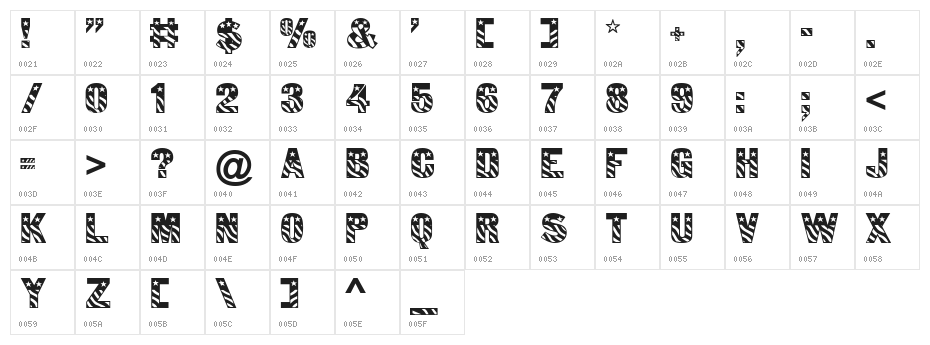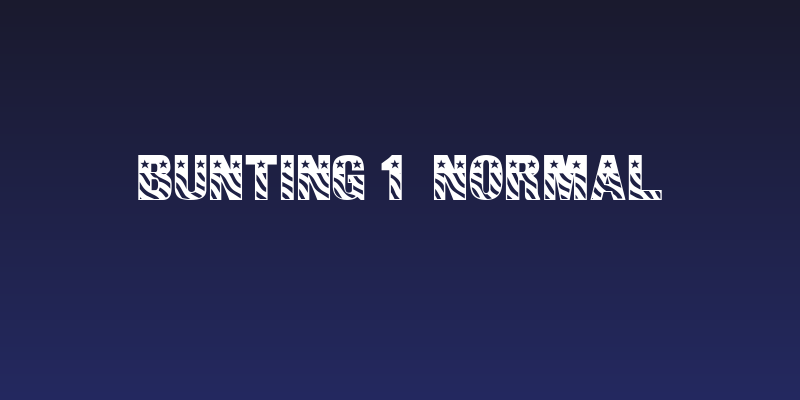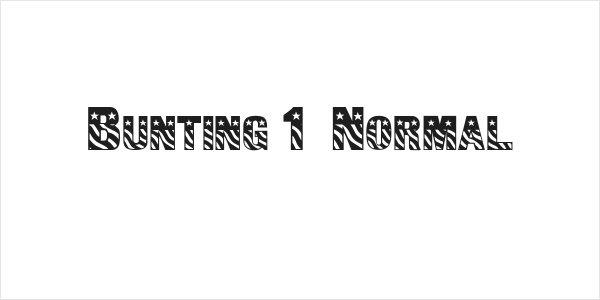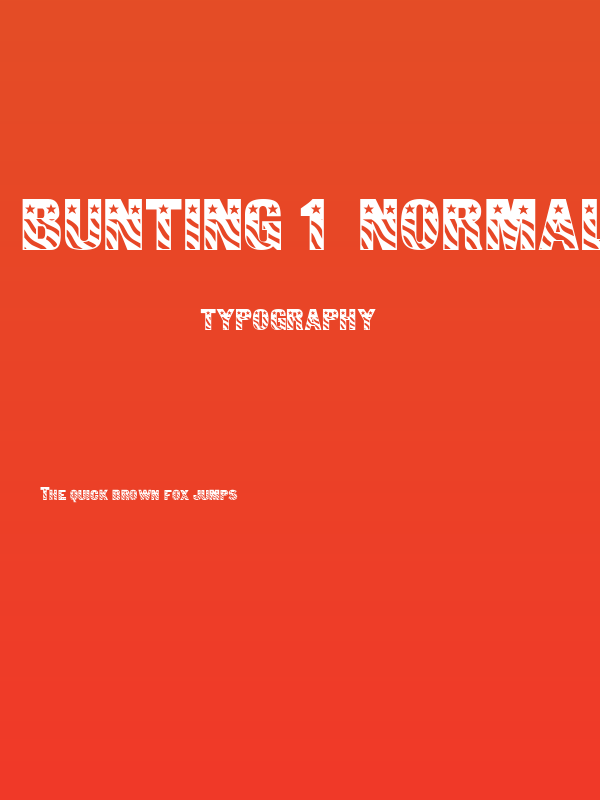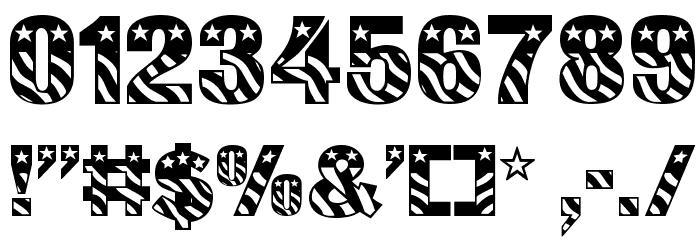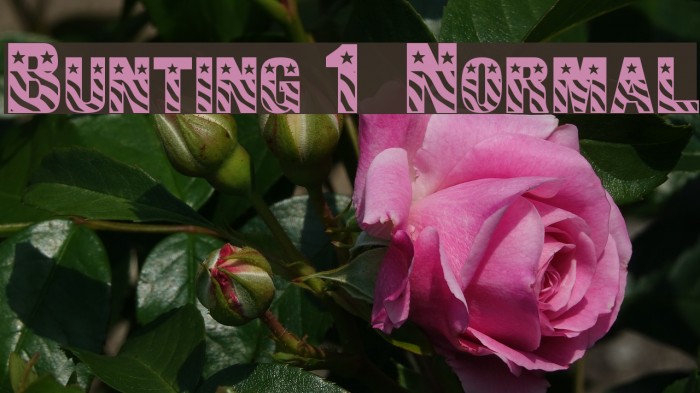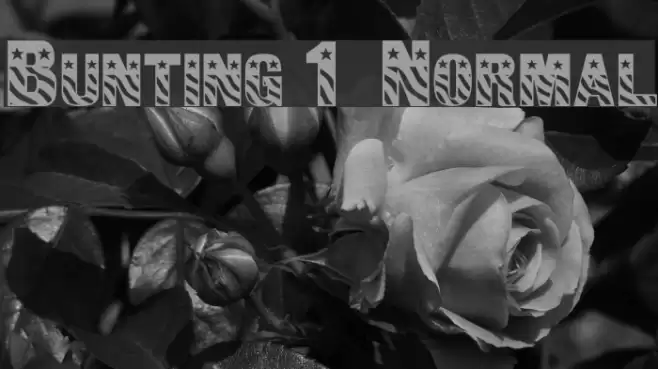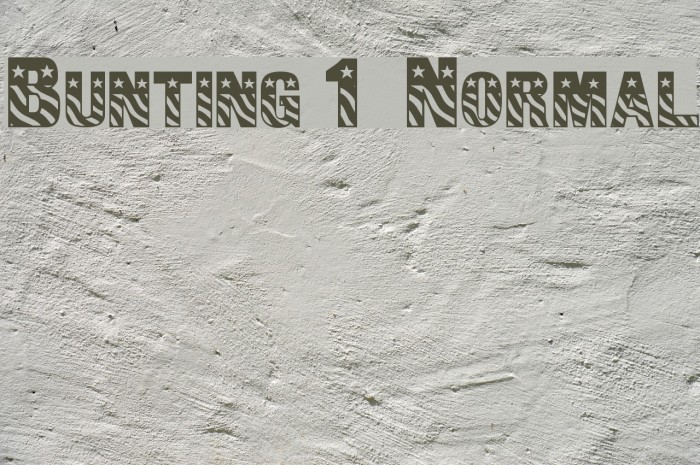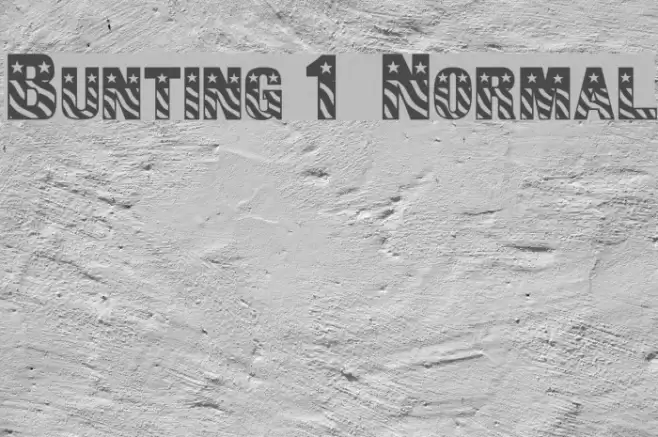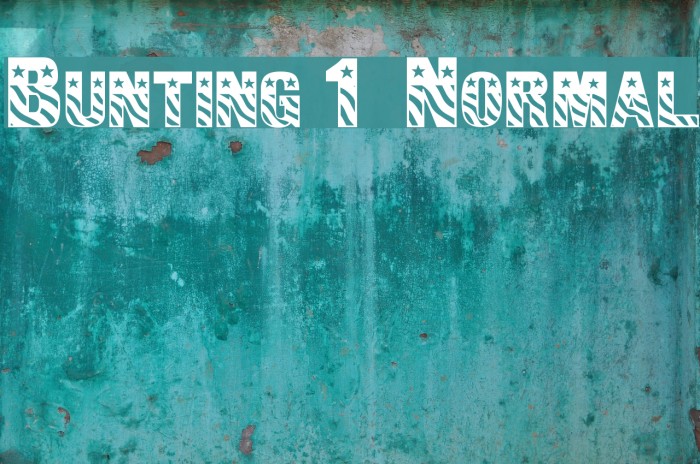
Bunting 1 Normal Font
Bunting 1 Normal Description
This font features a bold and decorative style with a unique pattern inside each character, resembling a festive bunting design. The uppercase and lowercase letters, as well as numbers and special characters, are filled with a playful combination of stripes and stars, creating a lively and eye-catching appearance. The characters are well-defined with a strong presence, making them suitable for attention-grabbing designs. The font maintains a consistent width and weight throughout, ensuring uniformity across different uses. Its decorative nature makes it ideal for projects that require a fun and celebratory touch.
| Proposed Projects | Ideal for party invitations, festive banners, children's book covers, and playful branding projects. |